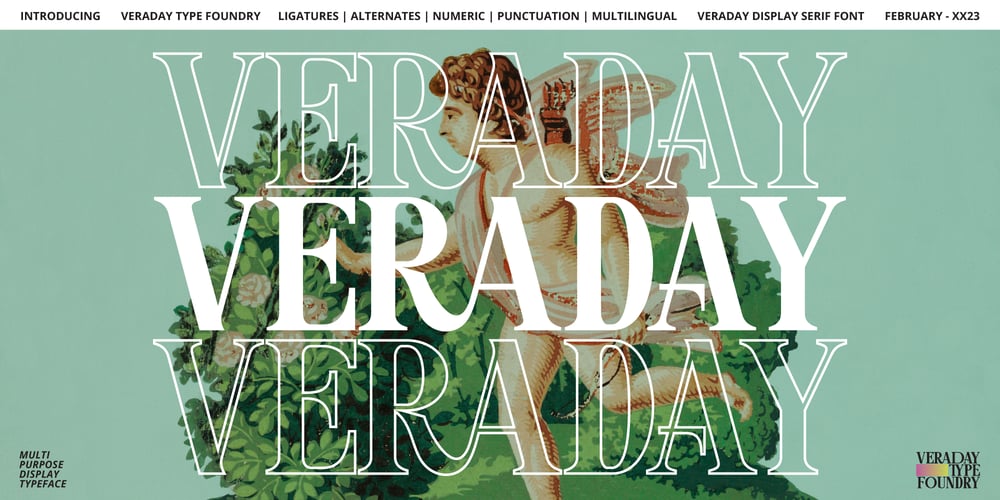
Veraday Display Serif
Veraday Display Serif font
Veraday Display Serif Font Family was designed by Ferdiansyah and published by ijemrockart. Veraday Display Serif contains 1 styles and family package options. Veraday Display Serif a new fresh & modern serif with a strong style, a dancing baseline! So beautiful on invitation like greeting cards, branding materials, business cards, quotes, posters, and more!Veraday Display Serif is the part of a strong and modern Bold display. This typeface both impressive at display sizes and easily readable in text size, while the sharp shapes of the triangular serif and the distinctive letter shapes show their strength in logo design and impressive editorial use.